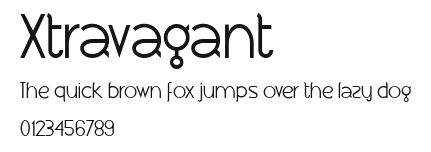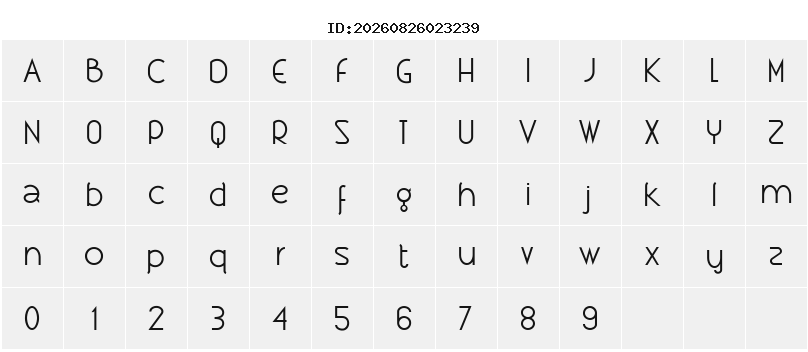
Xtravagant Preview
• Font Name: Xtravagant
• Full Font Name: Xtravagant
• PostScript Name: Xtravagant
• Designer: Alberto Villanueva
• Manufacturer: Alberto Villanueva
About Xtravagant.ttf
Xtravagant.ttf is a modern, elegant sans-serif font designed for ultimate readability and visual harmony. Perfect for branding, headlines, web design, and print materials.